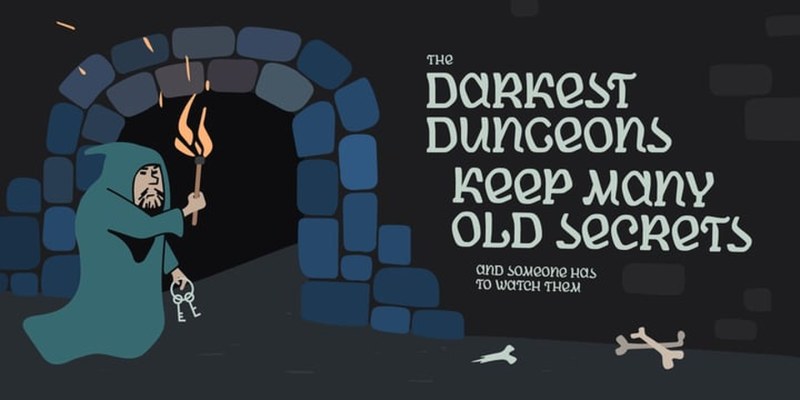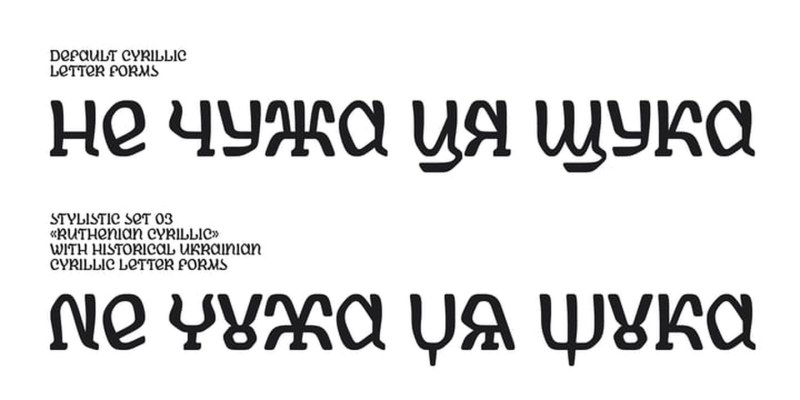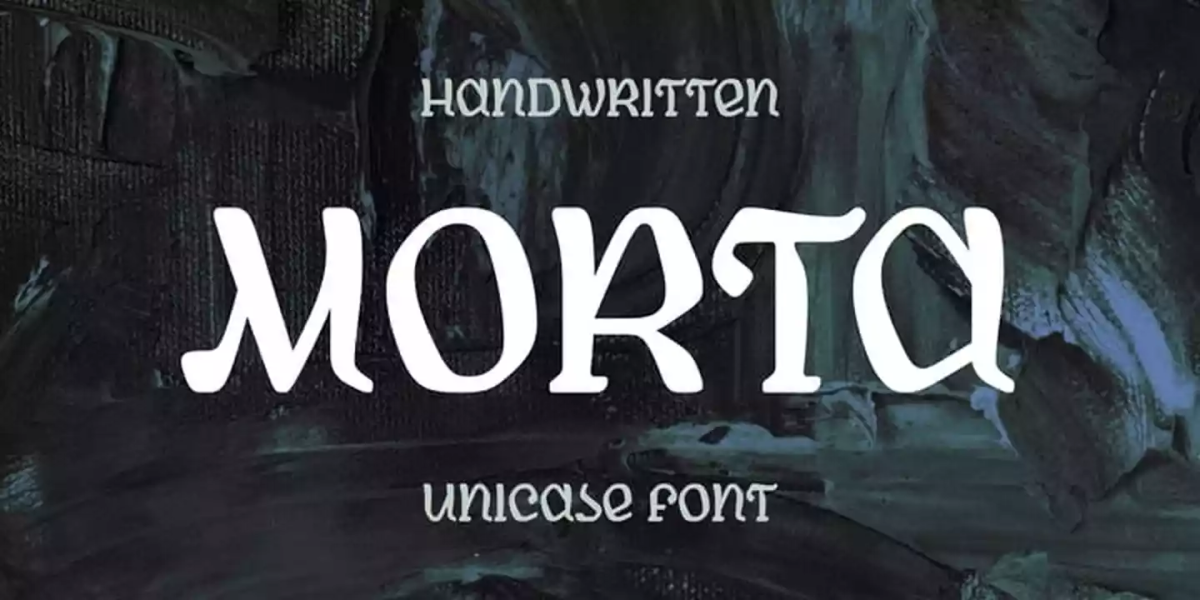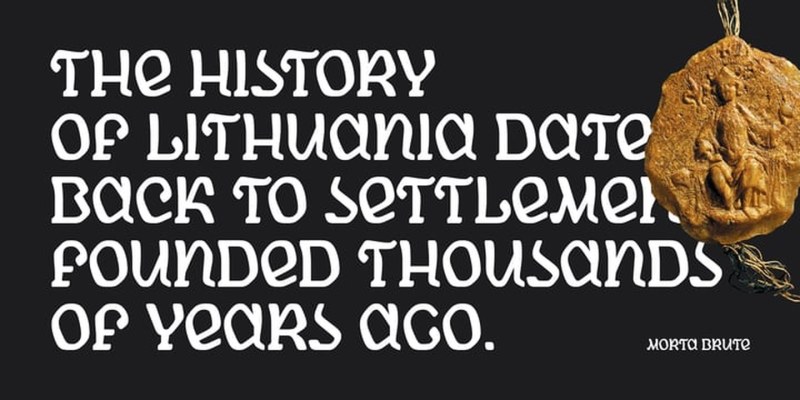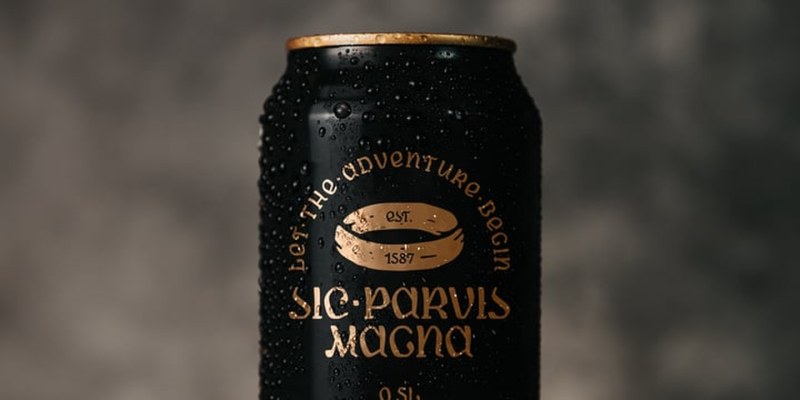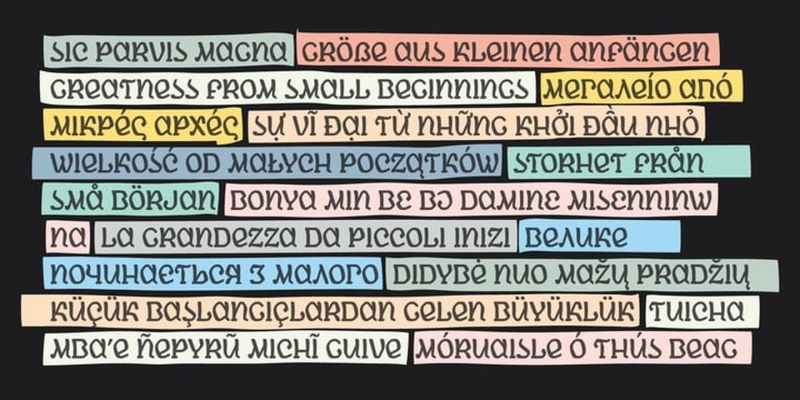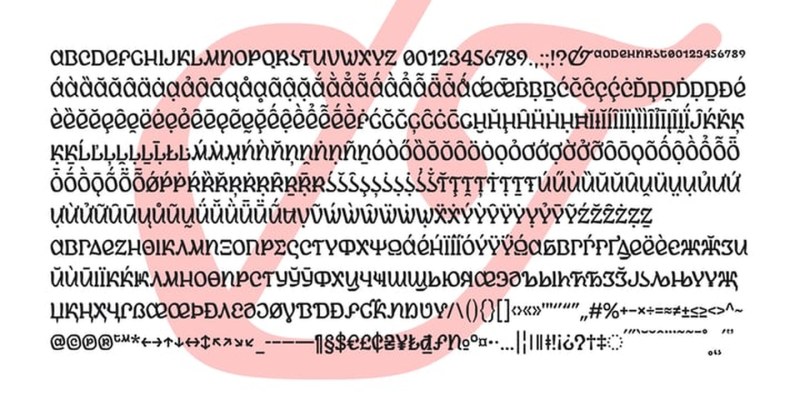
Morta Font Family
Morta is a handwritten unicase typeface with a slight calligraphic influence. Its design, like a centuries-old cold dark stones, has carved edges and polished corners, and represented by two styles: more legible “Brute” for general use, and more contrast “Grace” for large text size.